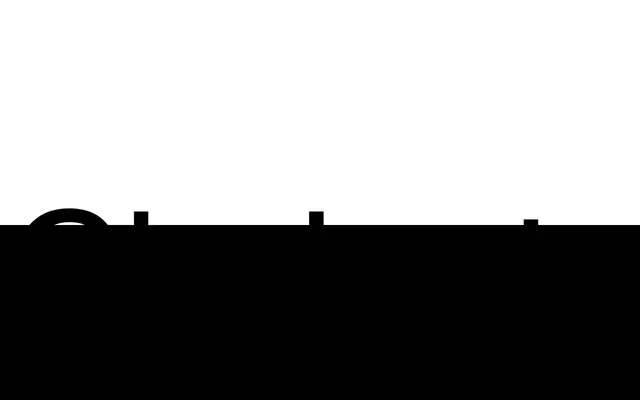
Clarinet
Setup Type · Ondrej Jób · 2025
A high-contrast modern serif with flared terminals and round proportions, spanning eight weights from Hair to Black.
Designed by Ondrej Jób, Clarinet draws on multiple historical periods of letterform evolution to produce a serif with wide, round proportions, chiselled details and a medium x-height. Eight weights from Hair to Black cover over 100 languages across Basic and Extended Latin, with 396 glyphs including proportional oldstyle figures, tabular lining figures and standard ligatures. A stylistic set offers single-storey alternates for a and g, giving designers additional flexibility for branding, packaging and editorial work.
Described explicitly as a modern serif with high contrast and flared terminals, drawing on multiple historical periods of letterform evolution. The combination of chiselled details and round proportions places it firmly in the modern/transitional serif tradition.